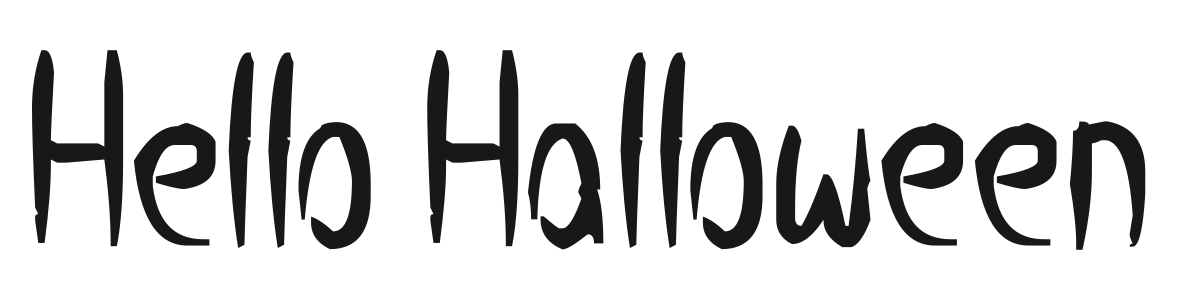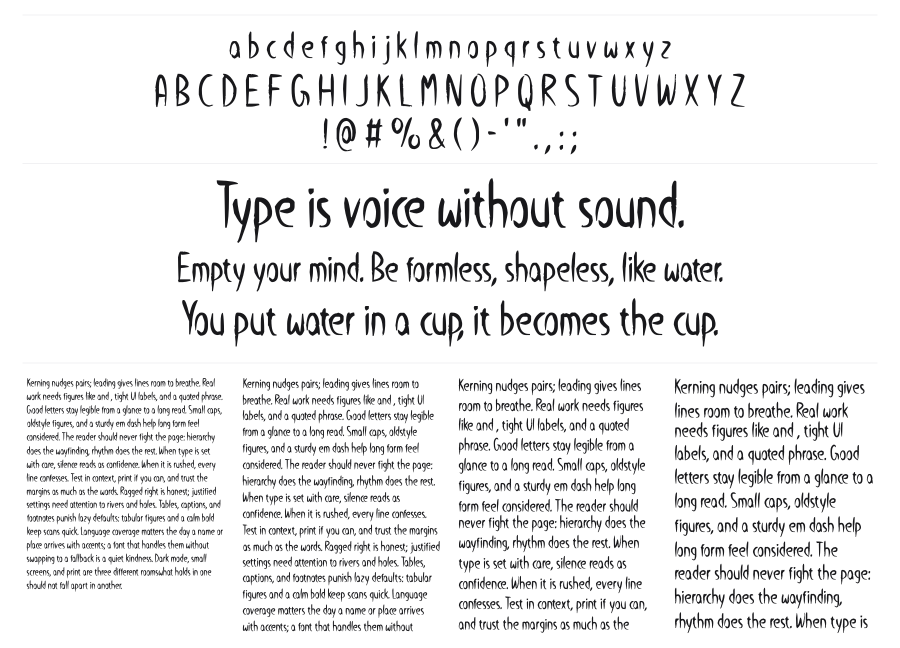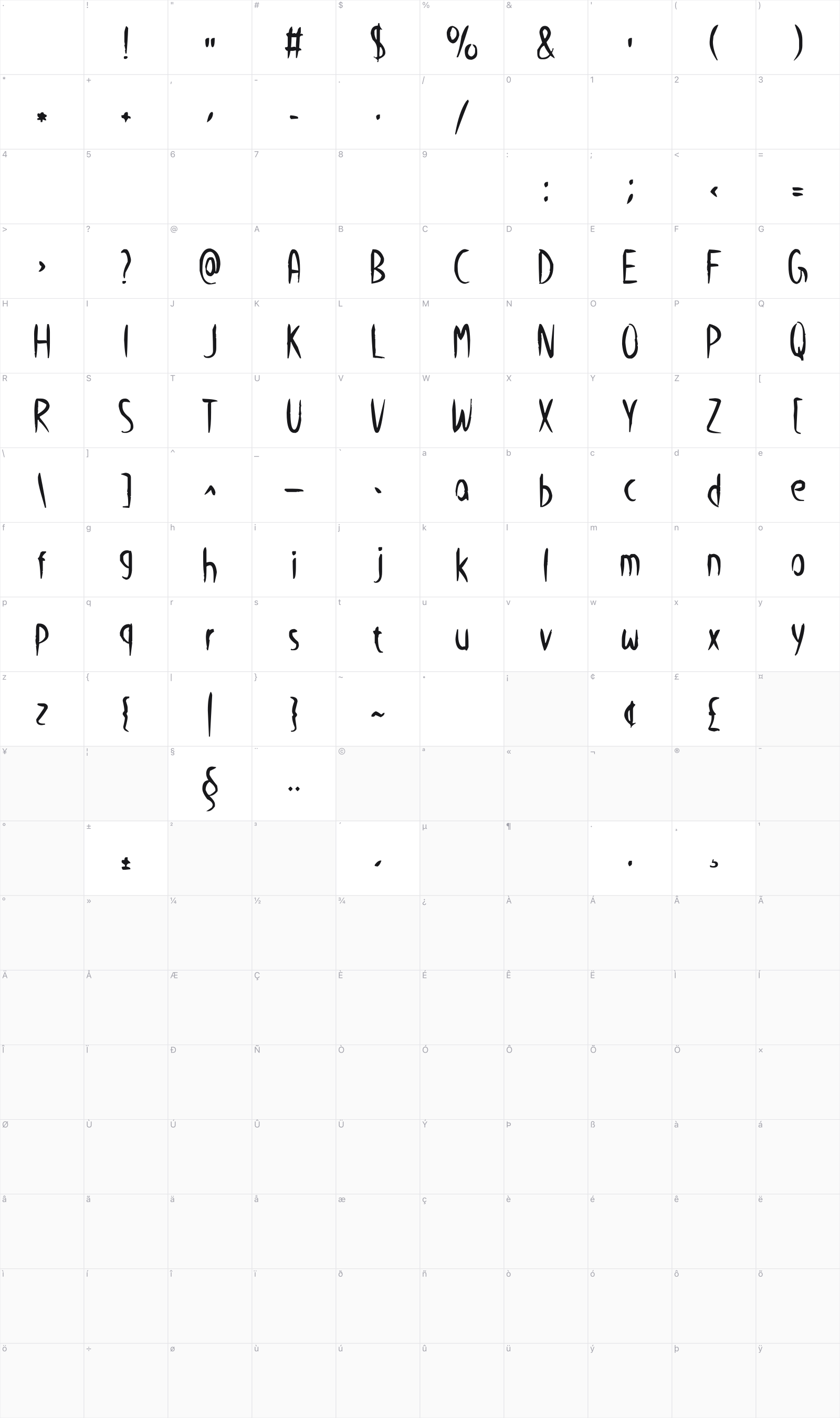
Hello Halloween
Hello Halloween is a heavy, rough-edged display font with scraped, irregular strokes that feel hand-carved rather than drawn. The distressed terminals and slightly wobbly construction give it an eerie, playful quality without veering into full horror. It works well for seasonal headlines, party invitations, and Halloween branding.